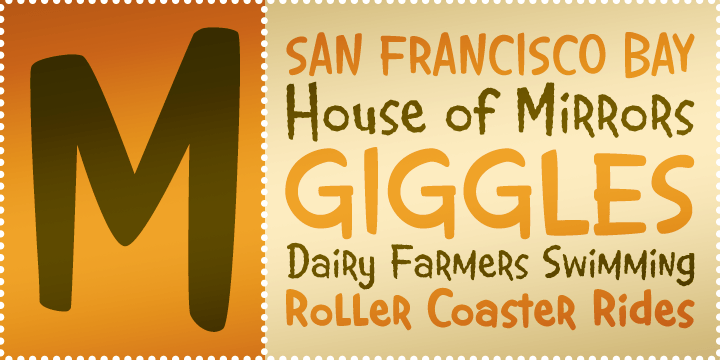
Cheddar Salad BTN
Cheddar Salad BTN is a playful handmade type family created with scrapbookers, crafters, and casual lettering projects in mind. Its relaxed homemade feel gives designs a warm, personal touch that works beautifully for journaling, scrapbook layouts, recipe cards, gift tags, party materials, craft packaging, and decorative labeling. The family balances charm and readability, making it useful for both short notes and more display-oriented lettering. With a variety of companion styles including Quill and decorative Cameo versions, Cheddar Salad BTN offers plenty of creative flexibility for cheerful, homespun design work.